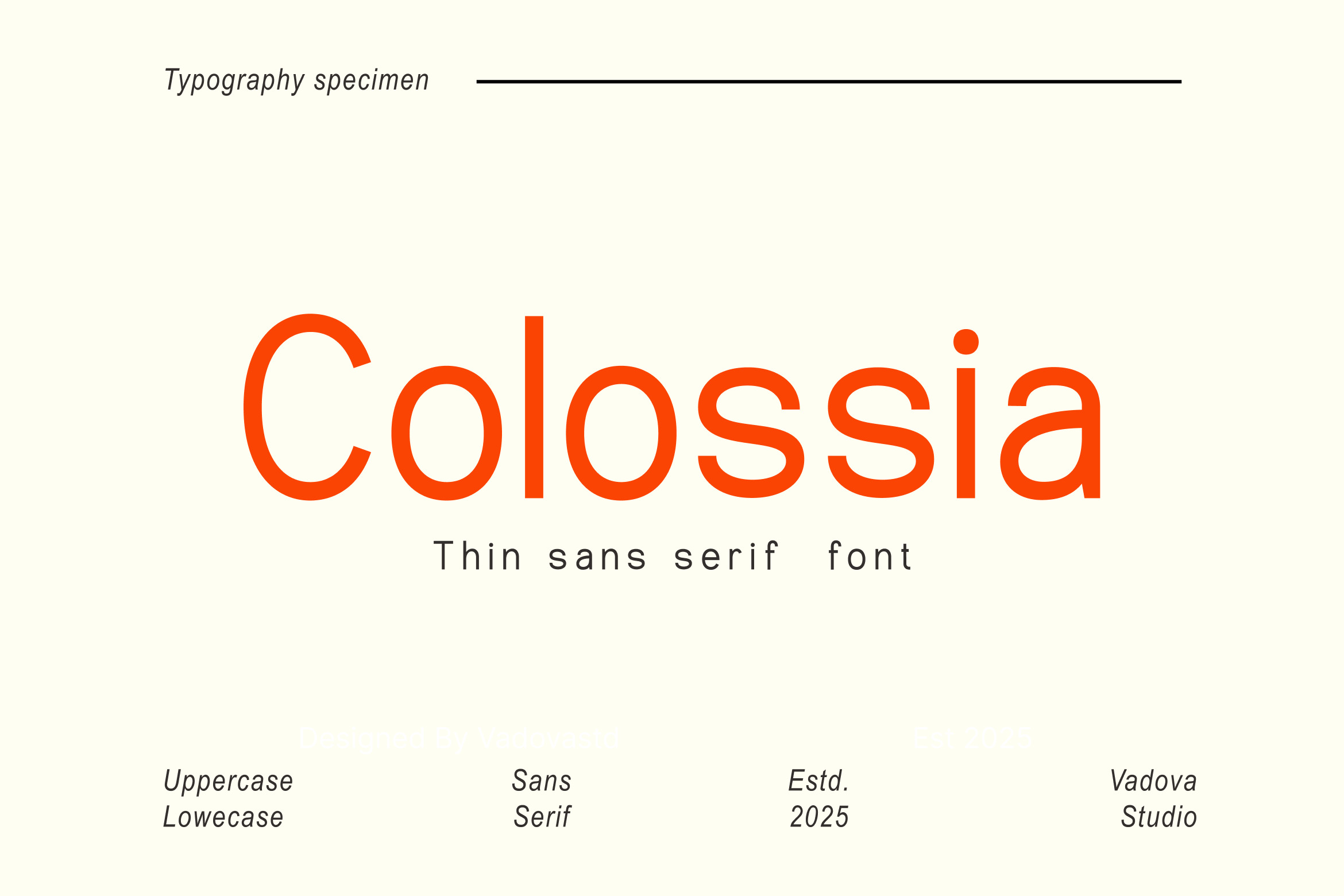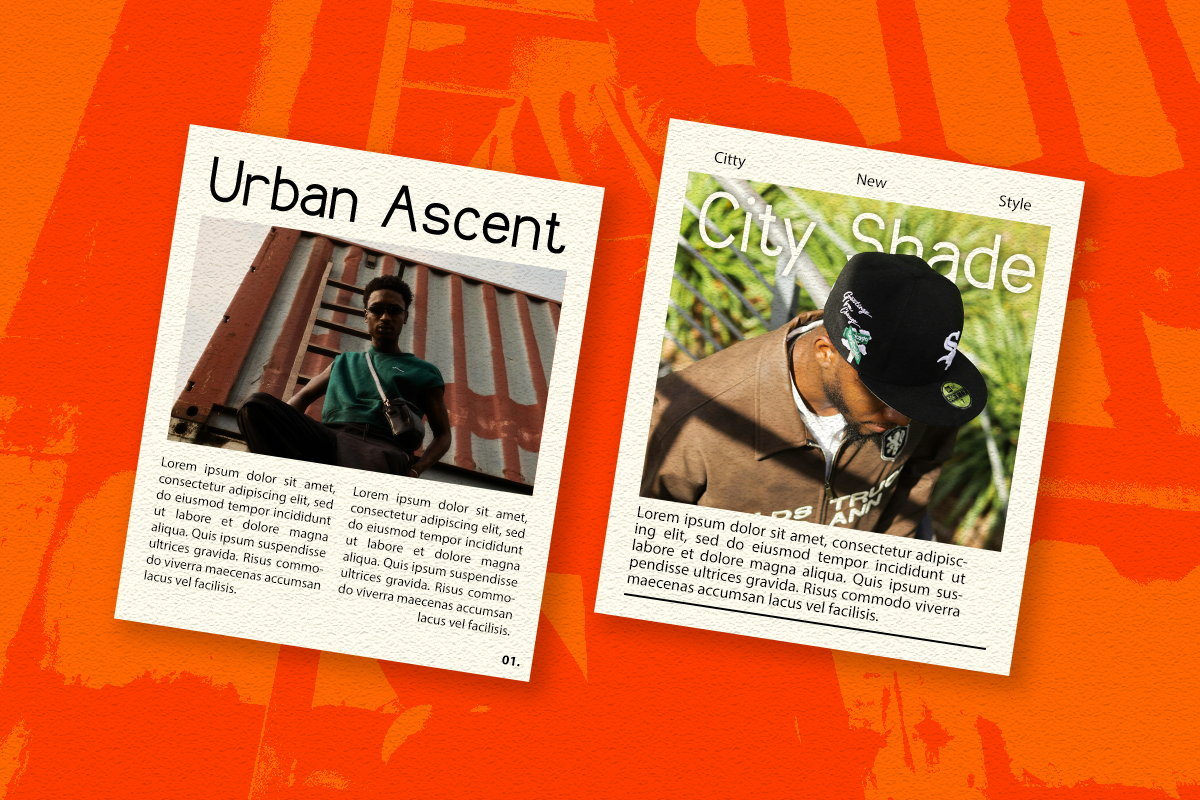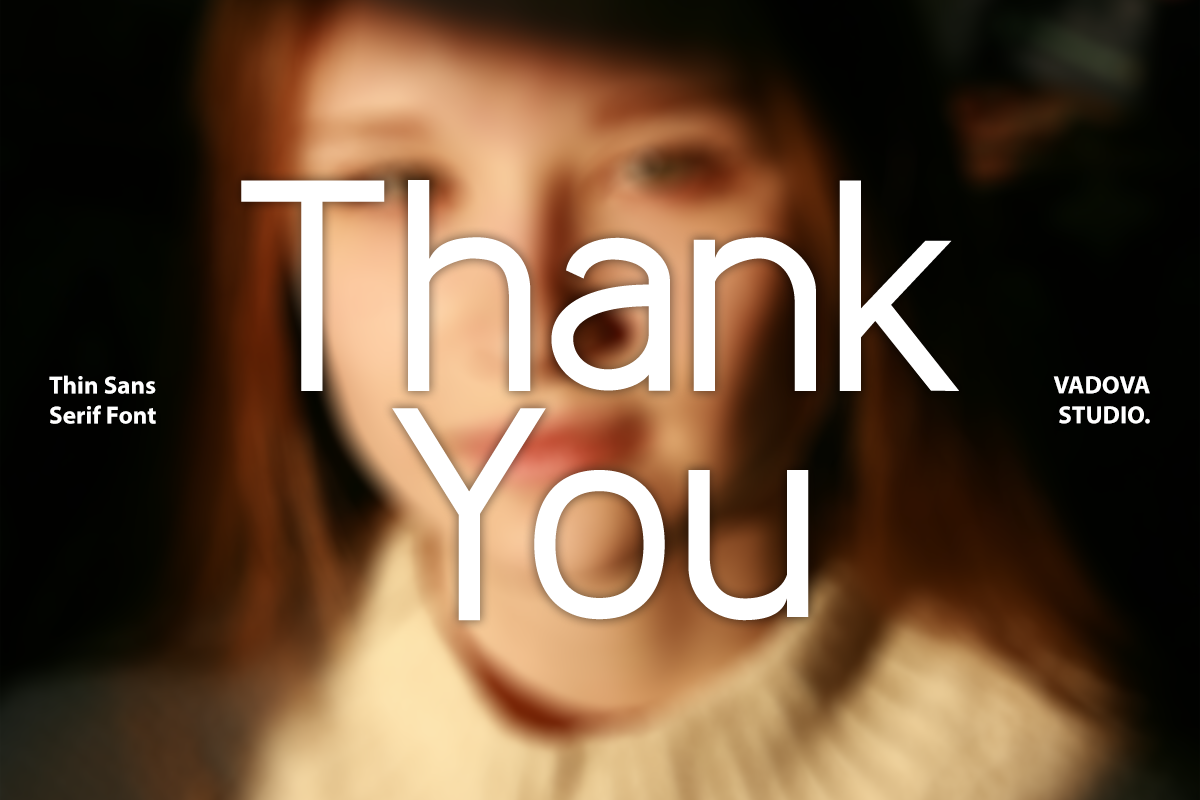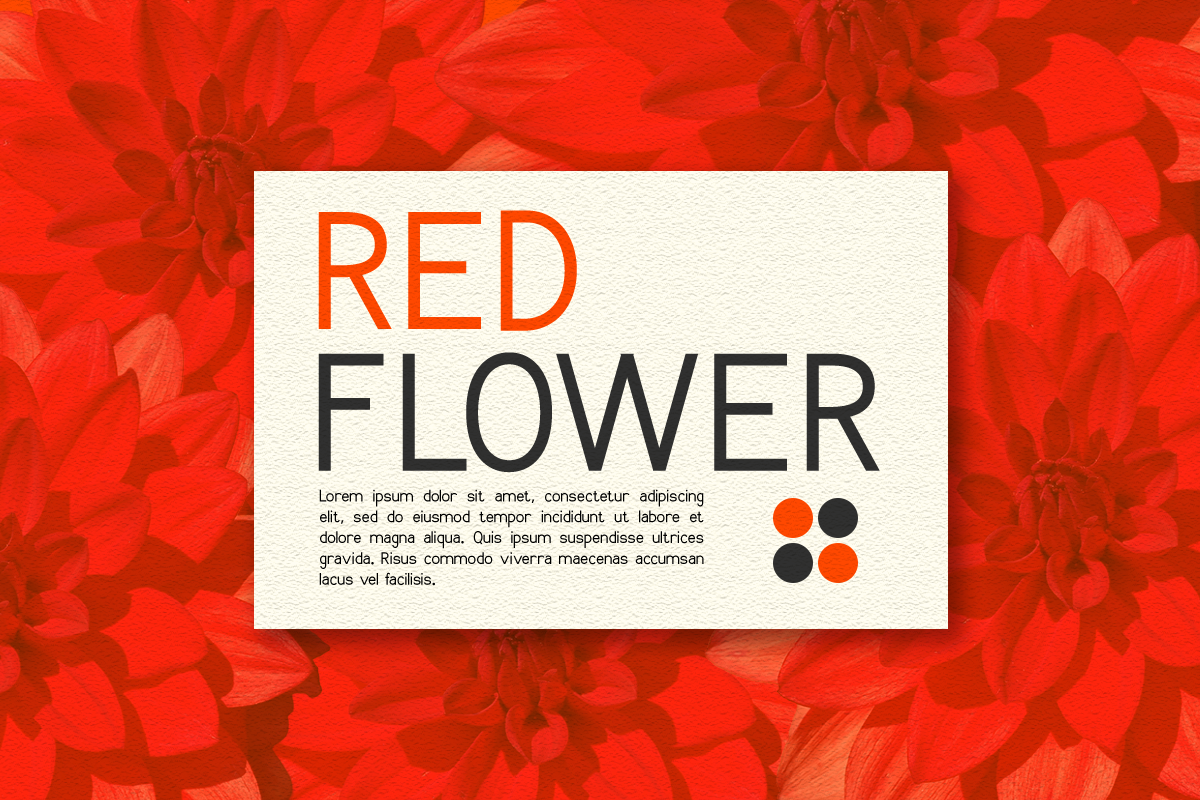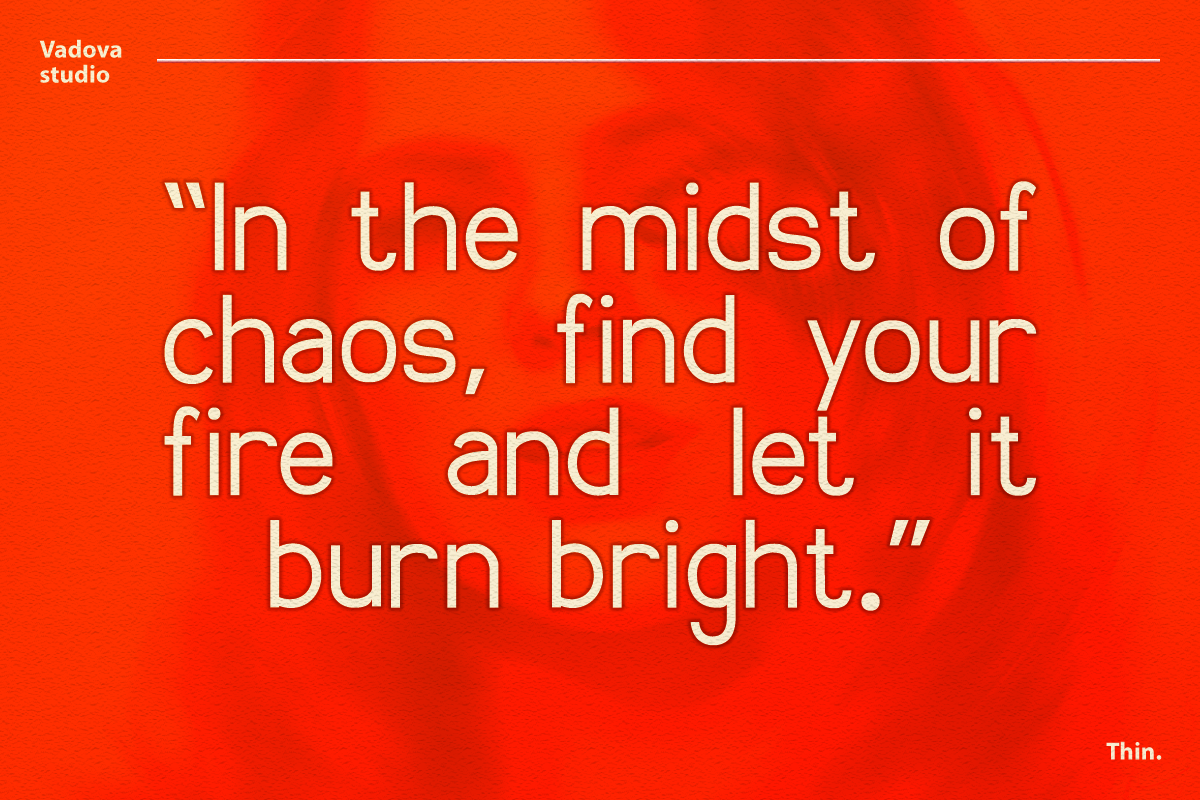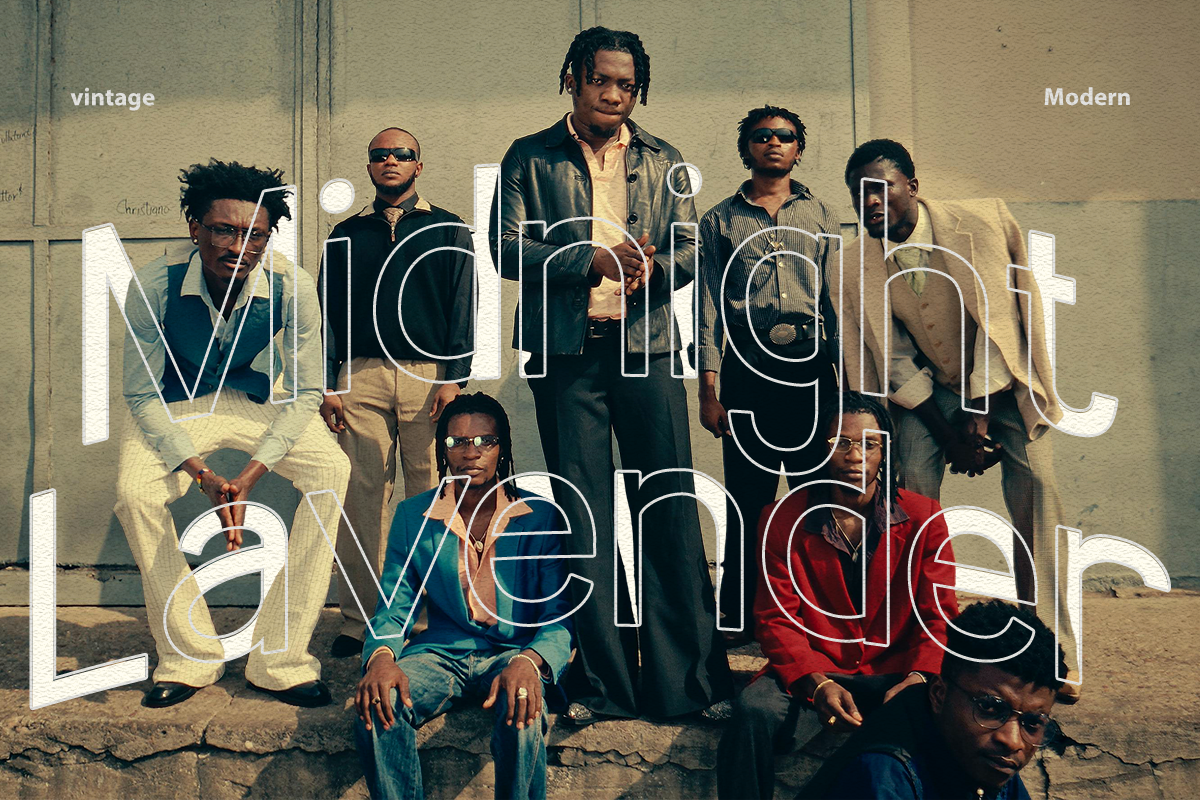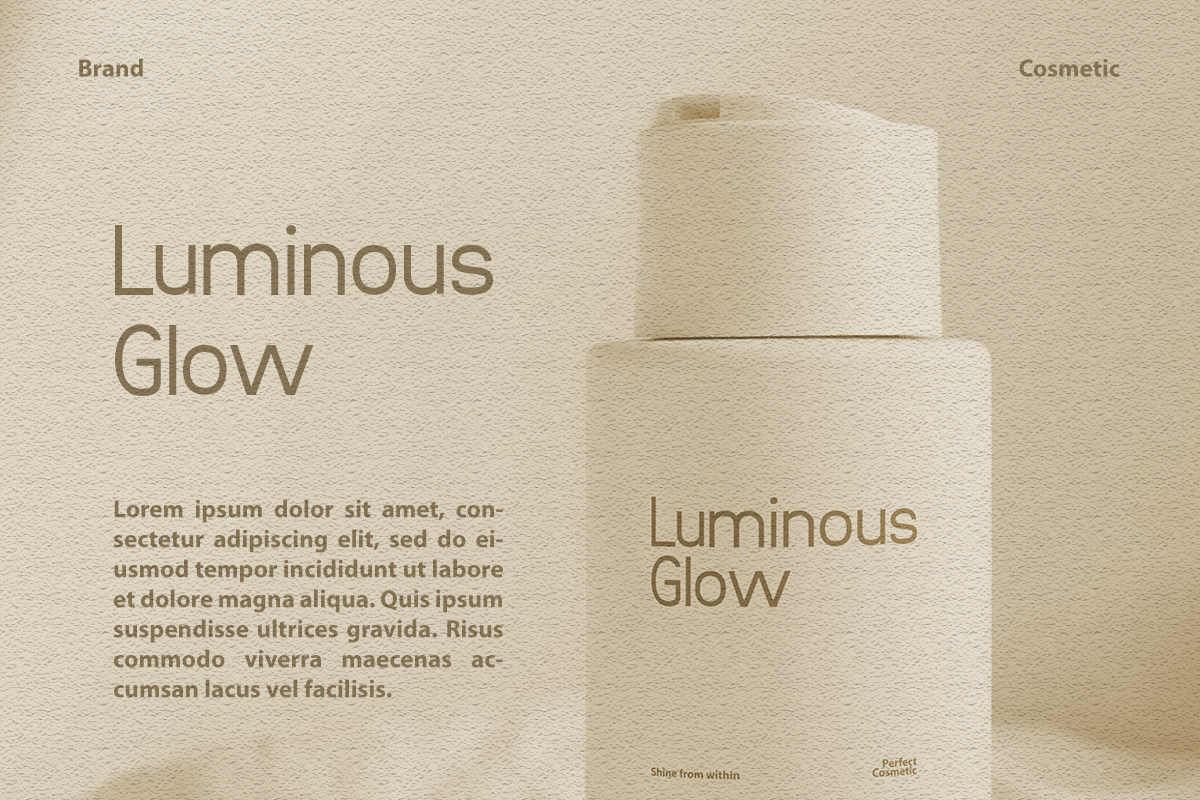
Colossia – Thin Sans Serif Font
Colossia is a thin sans serif font that combines modern simplicity with elegance. Its clean, minimalist design offers a sleek, contemporary aesthetic, making it perfect for projects that require a light, airy feel while maintaining readability. With its graceful letterforms and thin strokes, Colossia ensures a refined visual presence, making it ideal for modern branding, editorial layouts, and creative design projects.
Whether used for bold headlines or refined body text, Colossia offers versatility across various media, ensuring your designs stand out with clarity and style.
Why Designers Love It:
Sleek and Minimalist: The thin strokes and modern design provide a clean, refined look for any project.
Versatile and Readable: Ideal for both display use and smaller body text, offering excellent legibility.
Contemporary Aesthetic: Colossia brings a sophisticated, modern feel to any design, perfect for current design trends.
Clean Design: Its minimalist design makes it a great choice for sleek and stylish projects.
Modern, minimalist design ideal for various applications
Best Use Cases:
Modern branding and identity
Editorial headlines and magazine layouts
Website headers and banners
Logo design and creative campaigns
Product packaging and labels
Digital media and social media graphics
Business presentations and corporate branding
Colossia is the perfect font for anyone seeking a modern, refined, and minimalist typeface that delivers both style and functionality. Use Colossia in your next design project to achieve a sleek, contemporary look with an emphasis on readability and elegance.